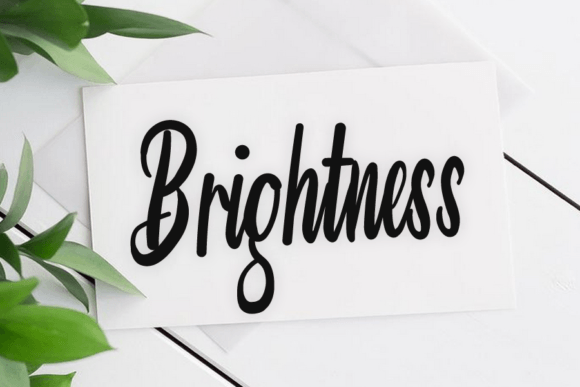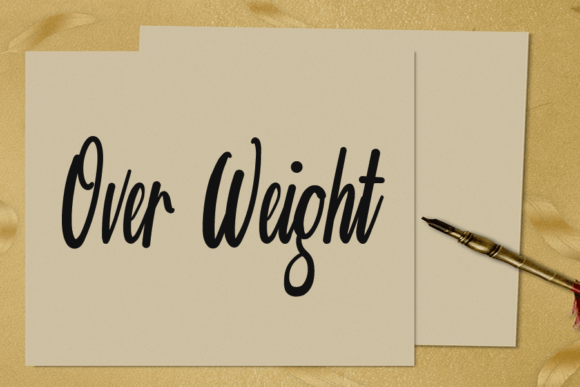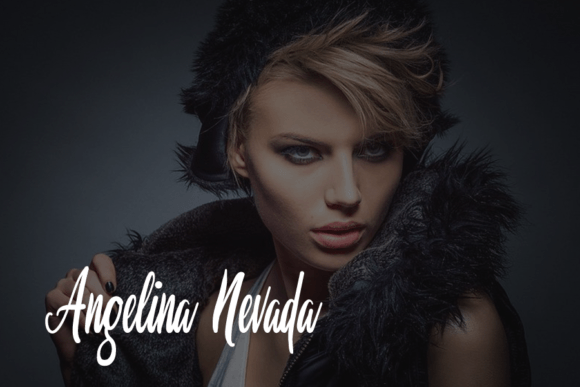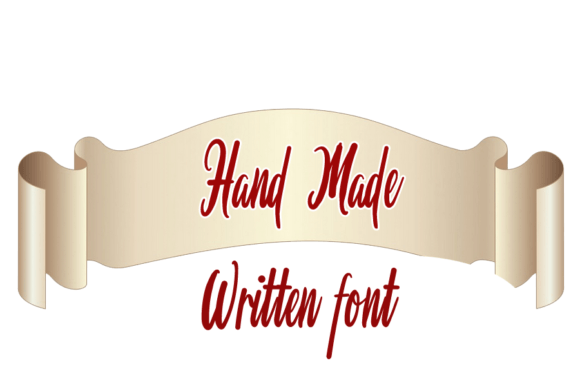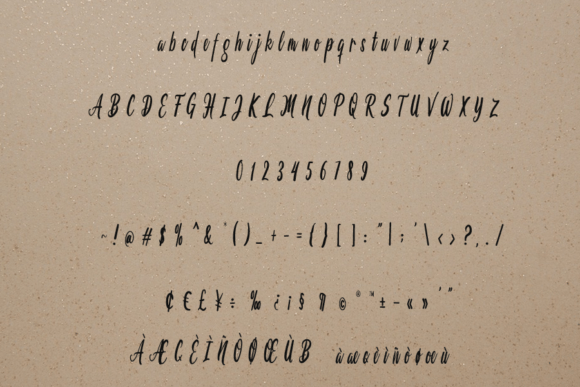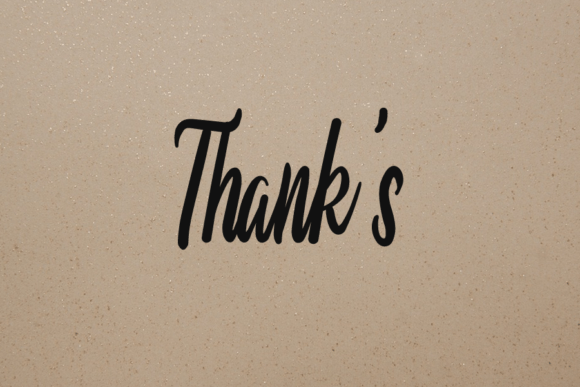
Discover the Timeless Elegance of Belover Font
Have you ever stared at a blank page, trying to find the perfect words to describe a beautiful design concept? That’s where inspiration strikes, and the search for the perfect font begins. For designers, the right font can elevate a project from good to exceptional. That’s why we’re excited to introduce you to the Belover Font, a script typeface that exudes simplicity and modernity.
Borrowing its charm from classic script fonts, Belover Font is perfect for creating elegant and luxurious logos, book or movie design titles, fashion brands, and magazine covers. Its versatility makes it a valuable asset for designers looking to add a touch of sophistication to their projects. Whether you’re working on a high-end fashion brand or a literary novel, Belover Font is sure to make a lasting impression.
Key Features of Belover Font
- Unique Characteristics: The font features a unique blend of modern and elegant styles, with intricate details and subtle nuances that give it a distinctive look.
Designer Review: Belover Font
Overall, I think Belover Font is a great addition to any designer’s toolkit. Here are some things that really stand out:
- ✨ Unique aesthetic: Belover Font has a distinctive look that’s perfect for brands and projects that want to stand out from the crowd.
- ✨ Versatility: The font comes in a range of weights and styles, making it easy to find the perfect fit for your project.
- ✨ High-quality glyphs: The font includes a wide range of glyphs, including some great international characters.
Of course, no font is perfect, and Belover Font has some limitations:
- ⚠️ Limited language support: While the font includes some international characters, it’s not as comprehensive as some other fonts.
- ⚠️ May not be suitable for small text: The font’s unique aesthetic can make it difficult to read at small sizes.
Overall, I think Belover Font is a great choice for designers who want to add a bit of personality to their projects. While it may not be suitable for every project, it’s a great option for brands and projects that want to stand out from the crowd.
Belover Font is a versatile font suitable for a variety of designs, including:
- Brand logos and identities
- Editorial and magazine designs
- Business cards and resumes
To get the most out of Belover Font, experiment with different styles and combinations to find the perfect fit for your design needs.
Alternatives to Belover Font
Great Vibes is a beautiful, elegant script font perfect for creating a warm and inviting atmosphere. It’s ideal for use in wedding invitations, branding, and packaging. Great Vibes has a more refined and sophisticated look compared to Belover Font, which is more casual and playful.
Pacifico is a modern, elegant script font that exudes a sense of relaxation and sophistication. It’s perfect for use in branding, packaging, and advertising. Pacifico has a more refined and polished look compared to Belover Font, which is more laid-back and casual.